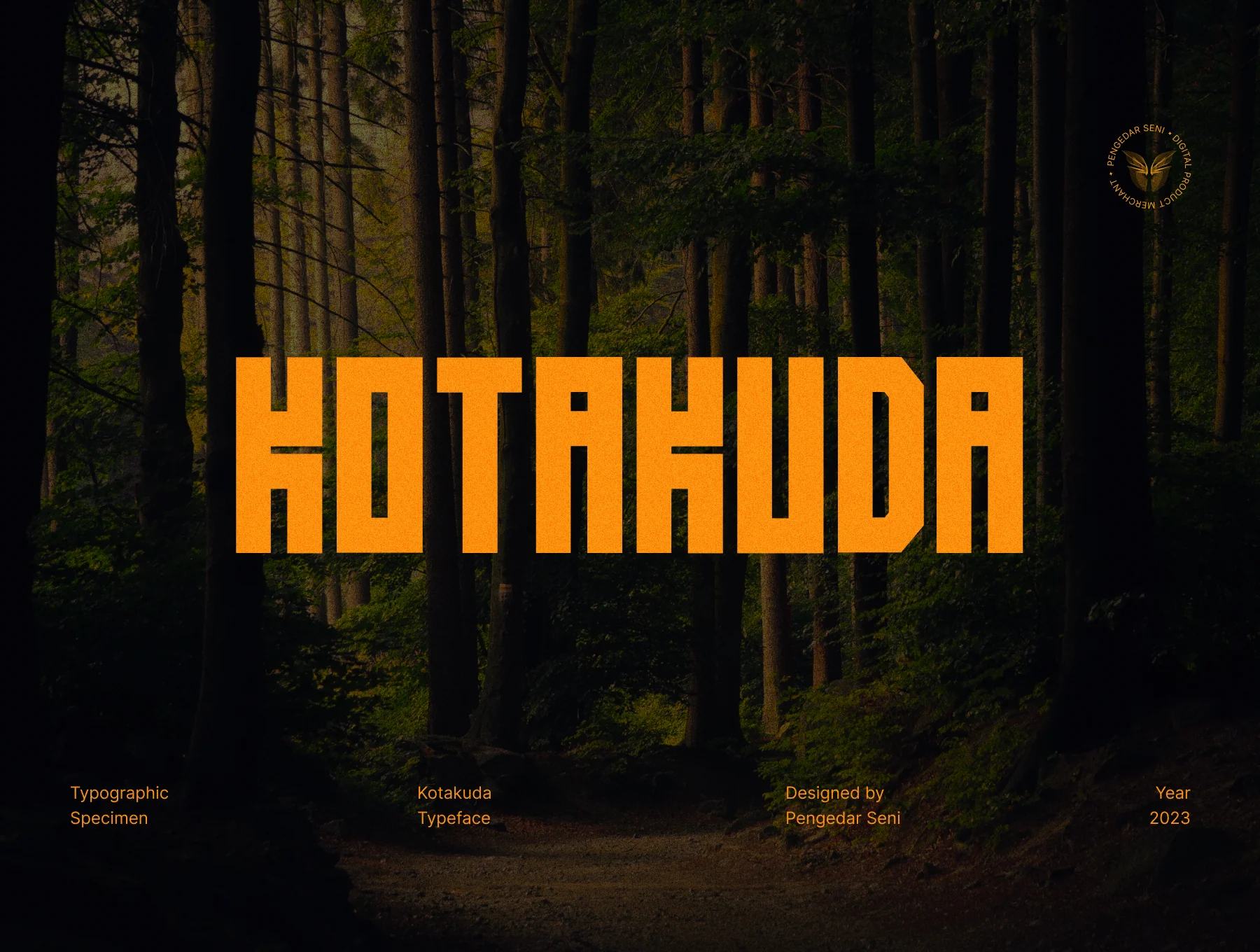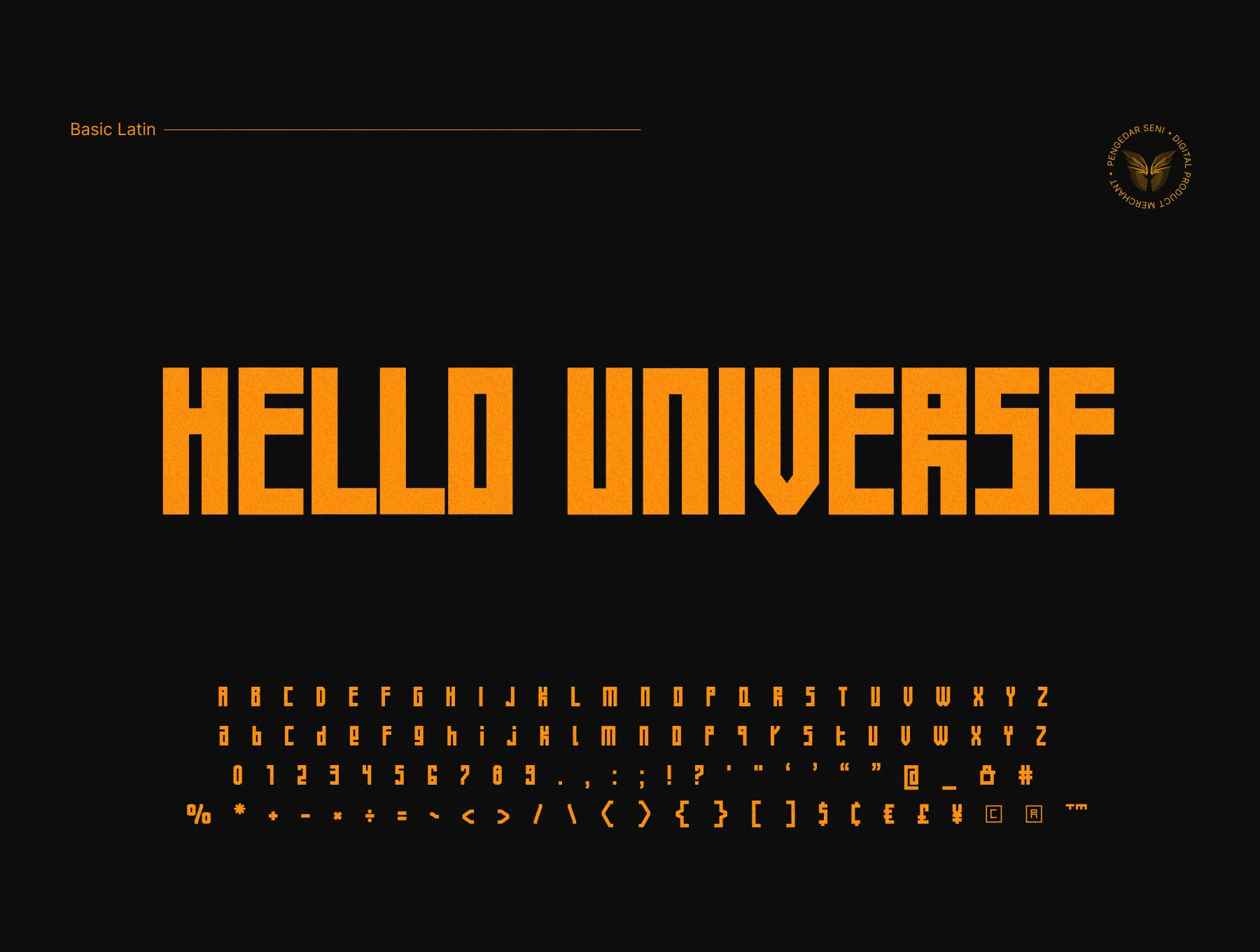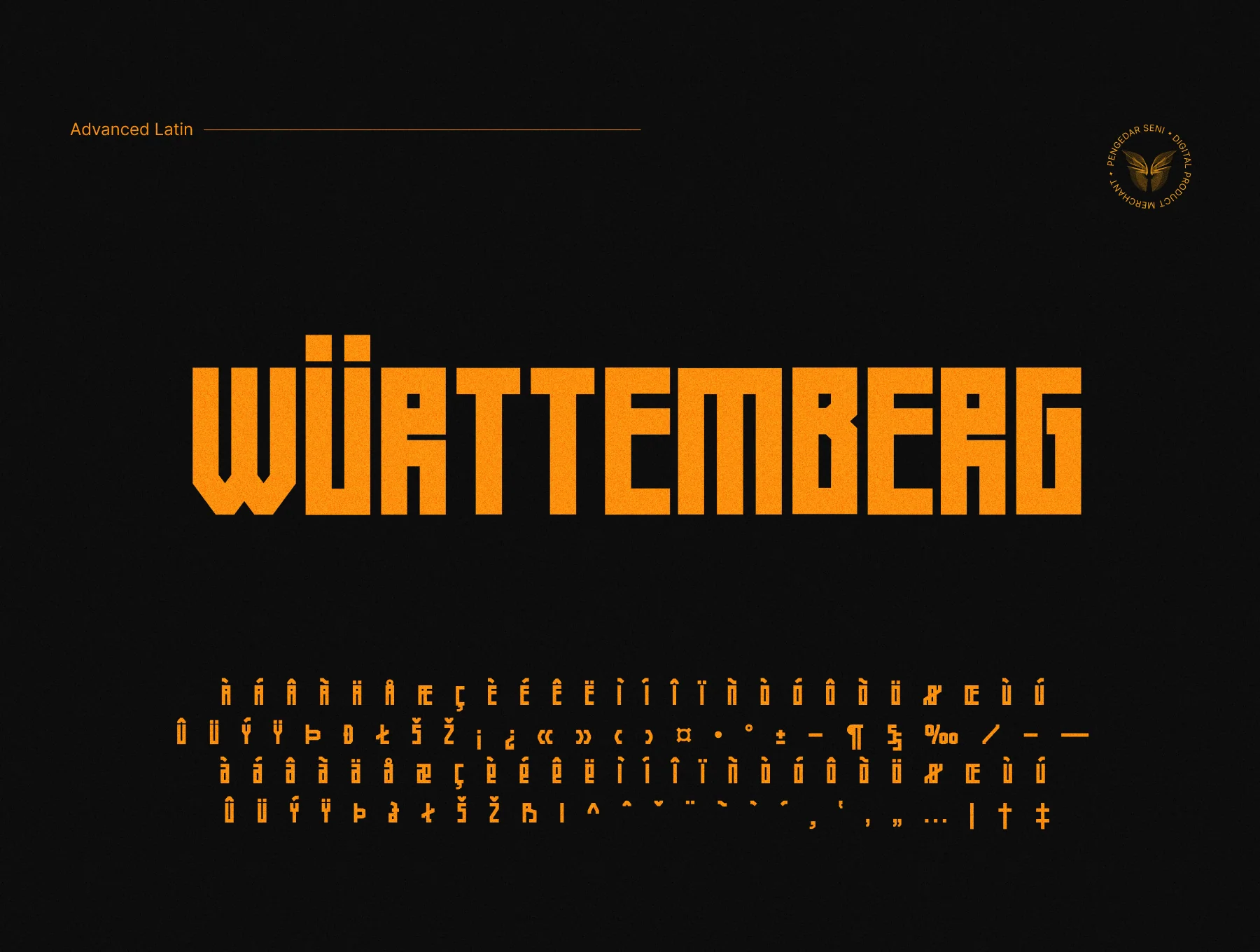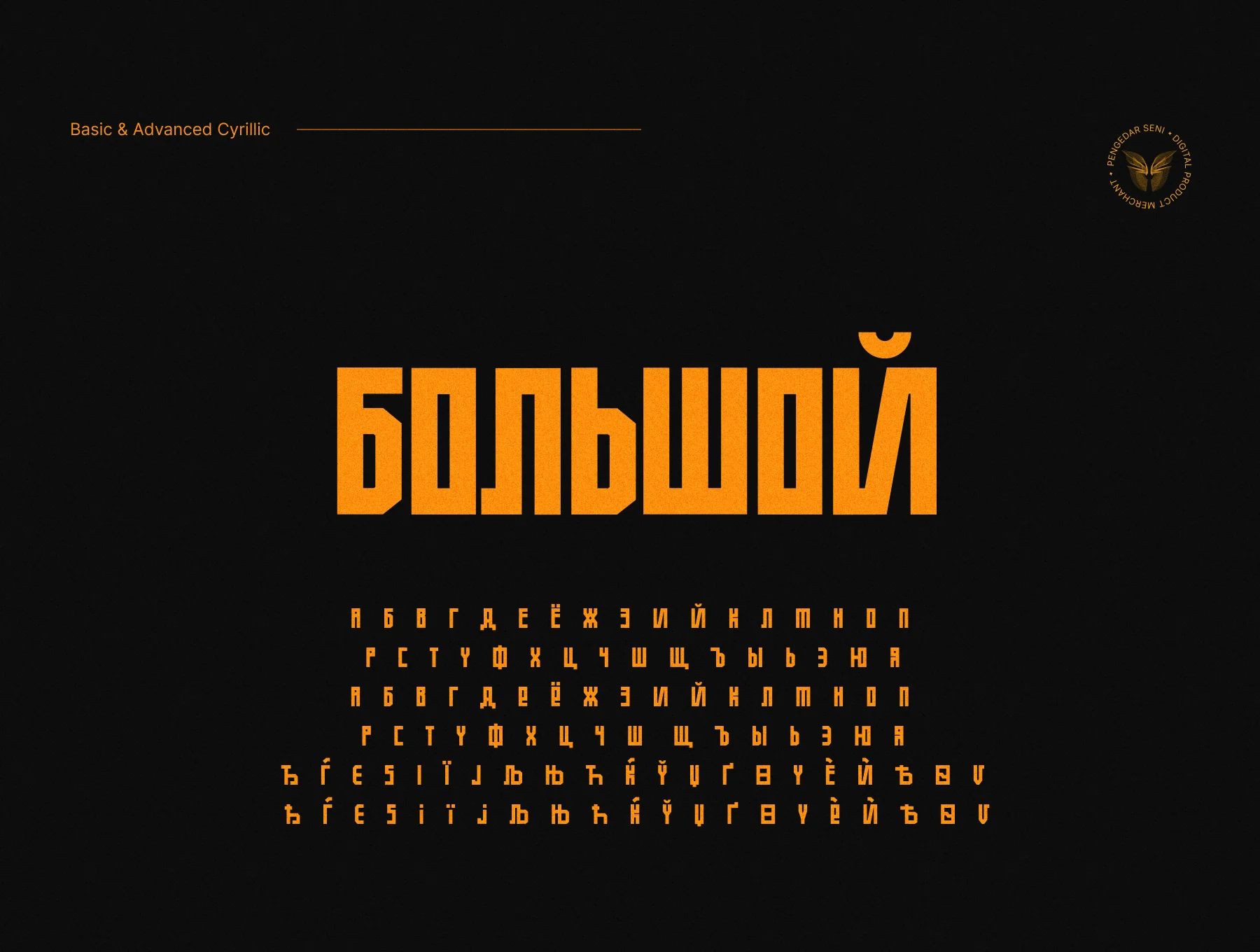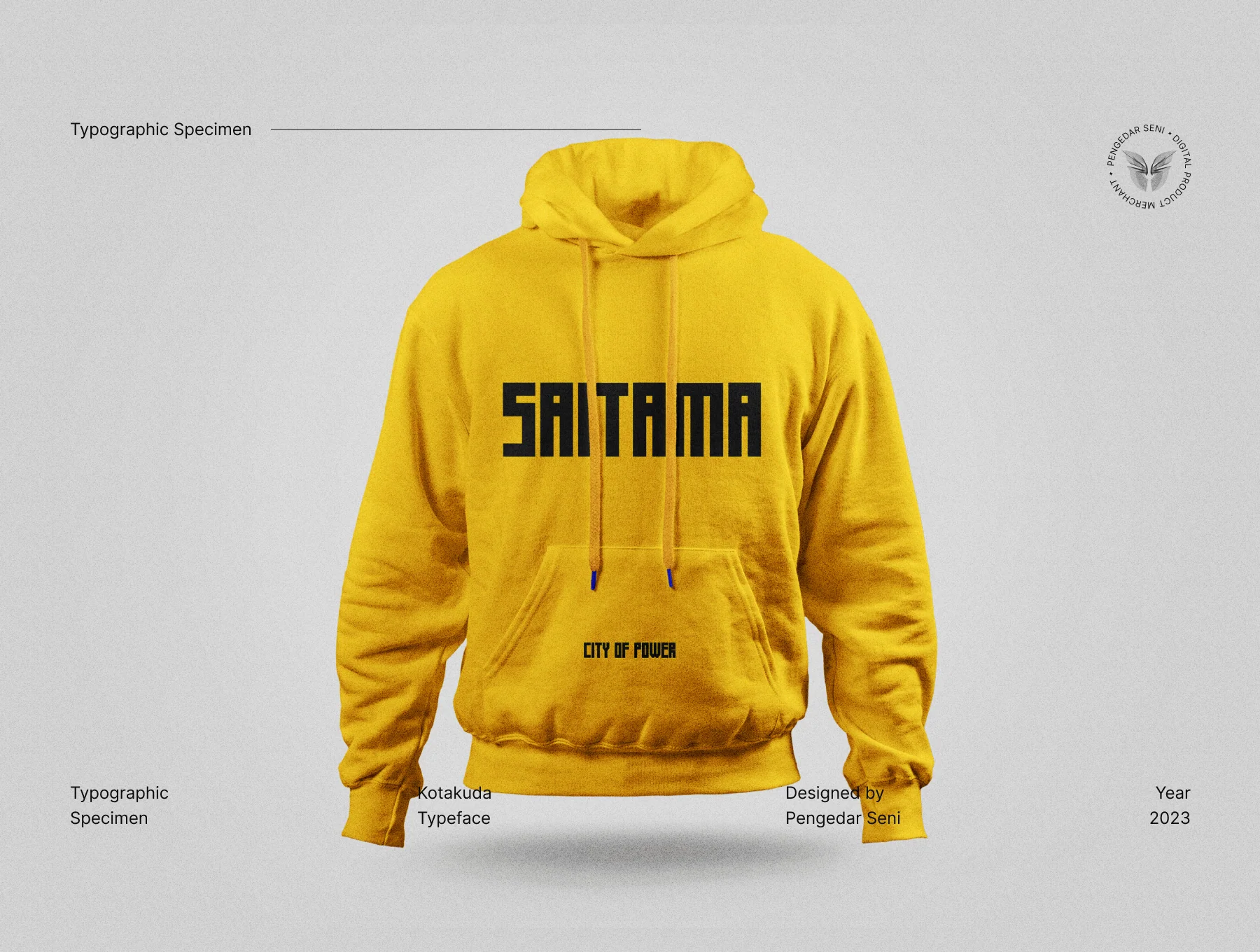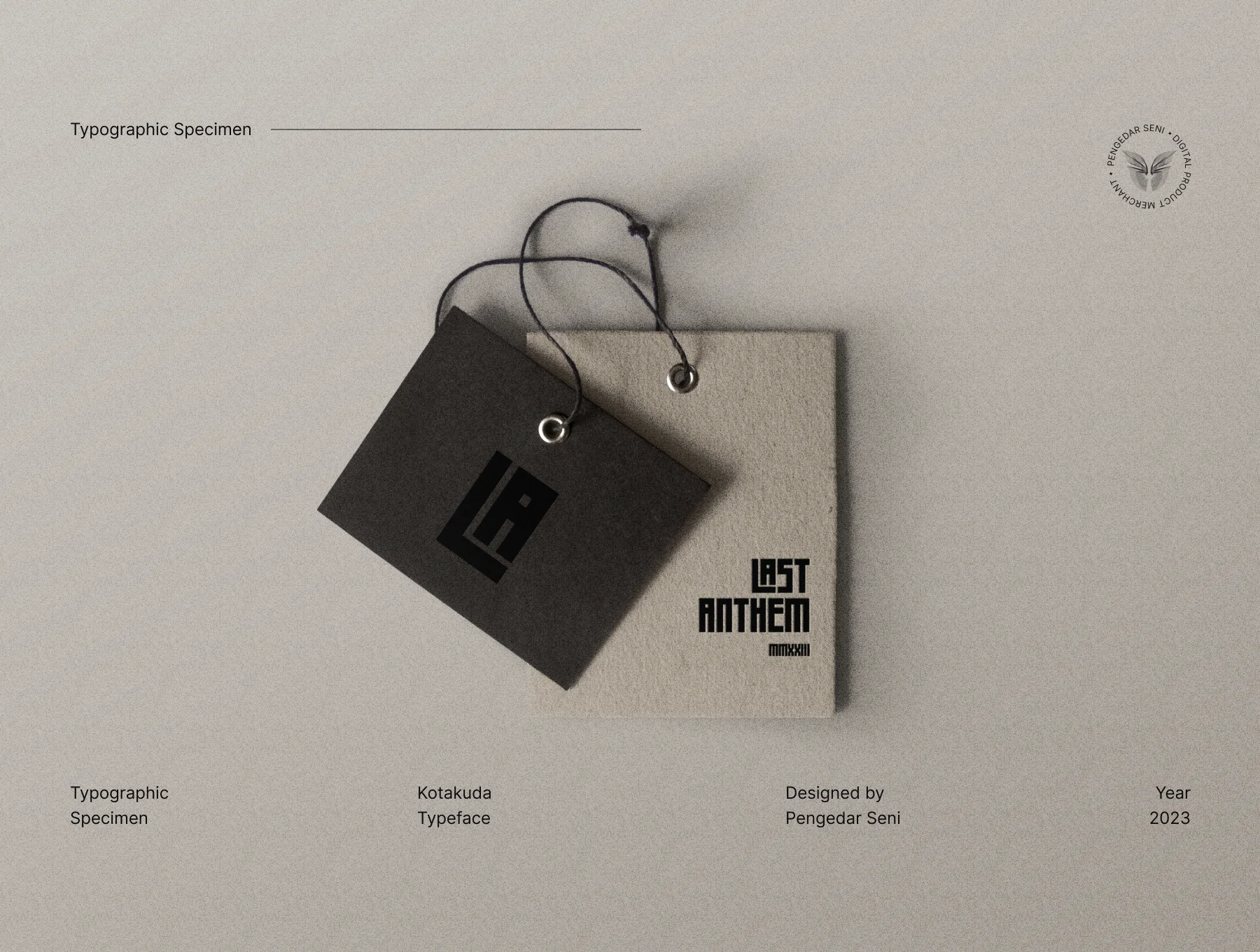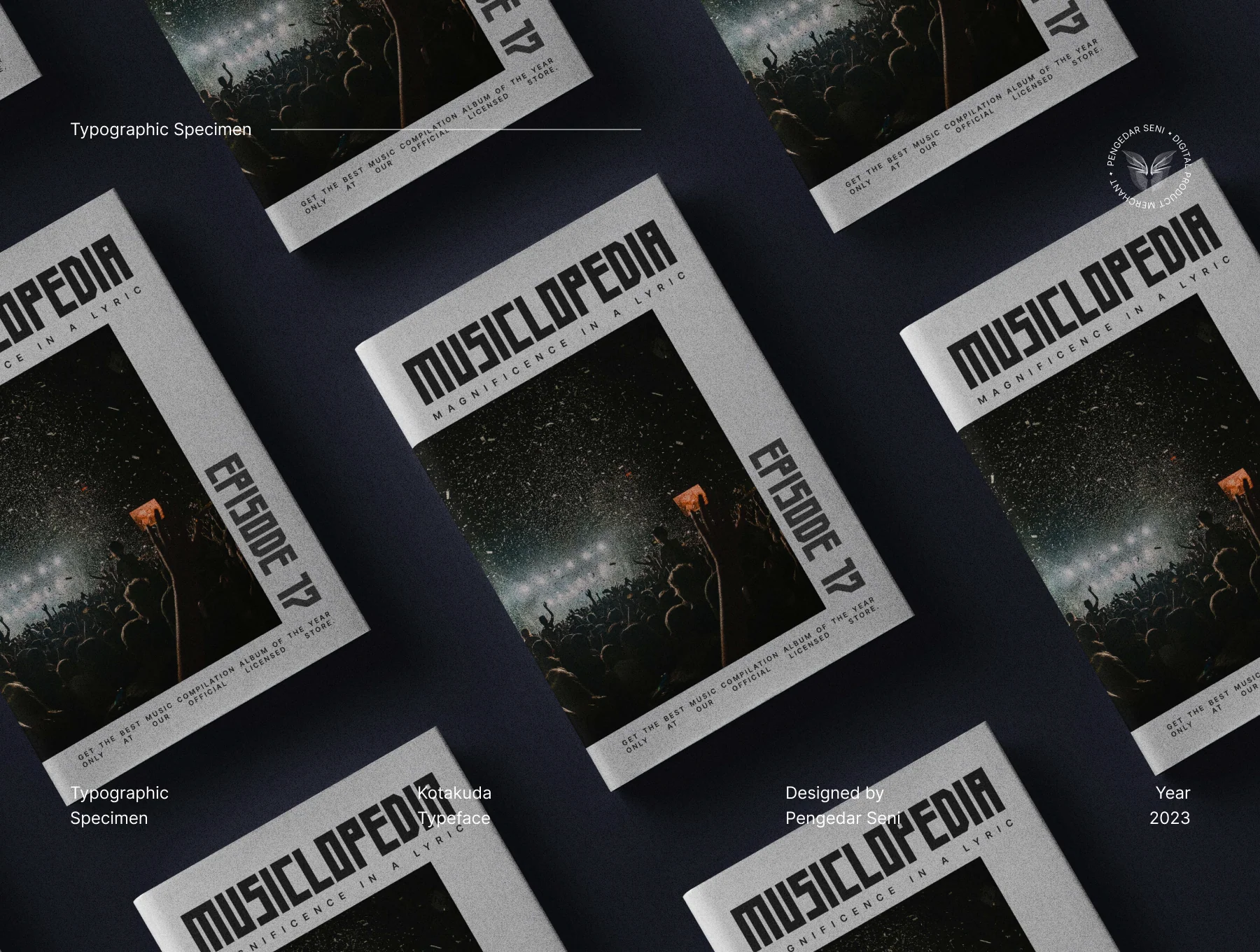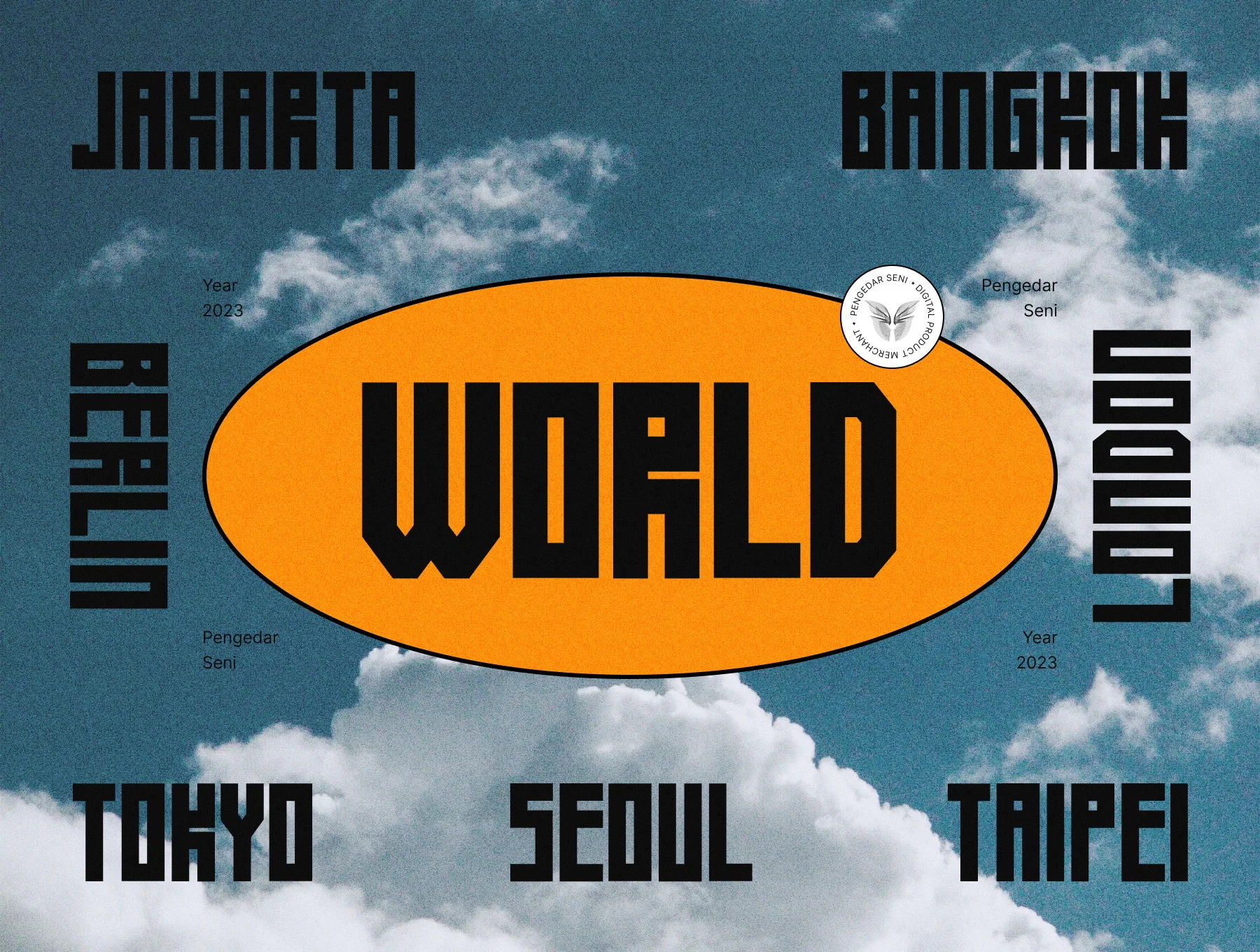
Kotakuda Bold Display Typeface
A Striking Display Font
Display sans serif typeface
Set of 339 glyphs
Kotakuda is a display font family that blends force with refinement. With Bold and Light styles, it suits striking headlines, logos, apparel, sports, editorials, and statement visuals. Its compact forms support tight kerning, strong hierarchy, and retro-modern character. Includes Latin/Cyrillic support for 82 languages and works in Adobe apps plus Microsoft Word.